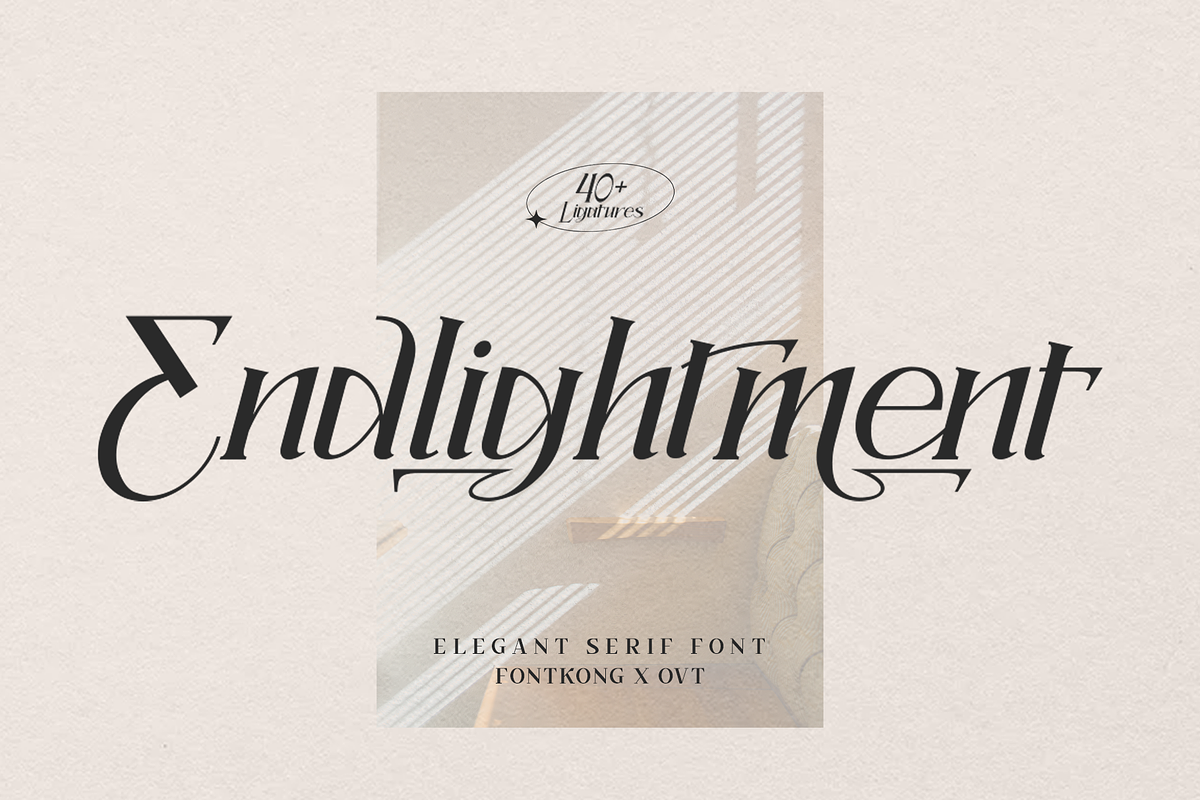
Endlightment - Elegant Serif Font Free Download
Endlightment - Elegant Serif Font Free Download is a refined and graceful typeface designed to elevate any project with timeless sophistication. Featuring delicate serifs, balanced proportions, and a luxurious aesthetic, this font is perfect for wedding invitations, upscale branding, editorial layouts, book covers, and high-fashion designs. It brings elegance and clarity together in one stunning package.
Endlightment’s classic beauty makes it highly versatile—ideal for both headlines and body text in print and digital formats. Whether you're crafting a romantic stationery suite or a chic magazine spread, this font adds a polished, premium touch.